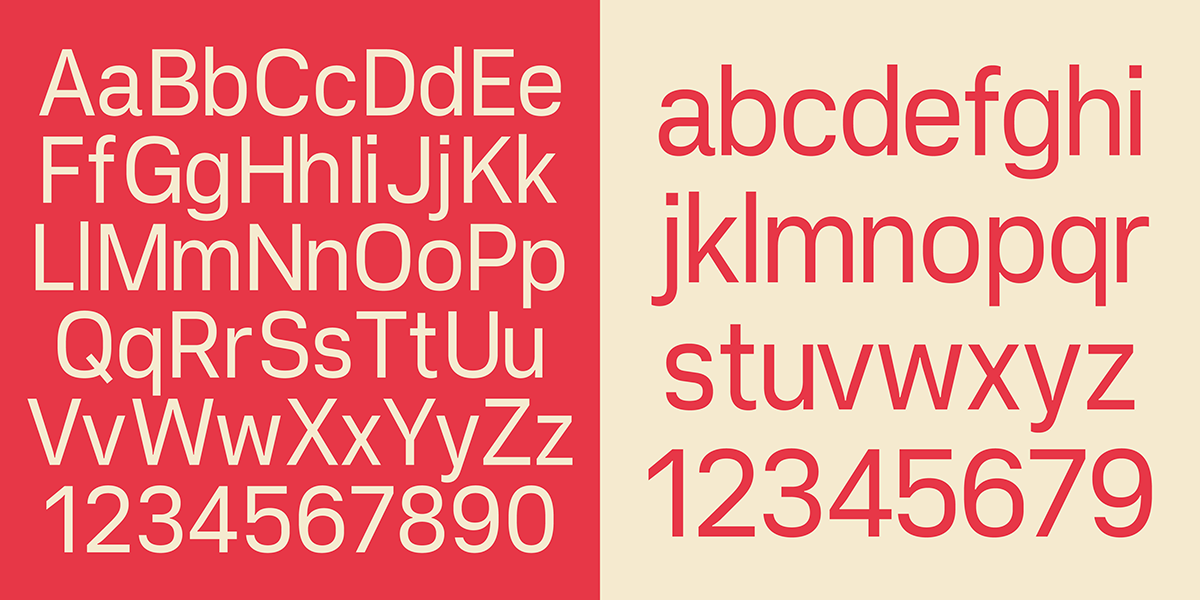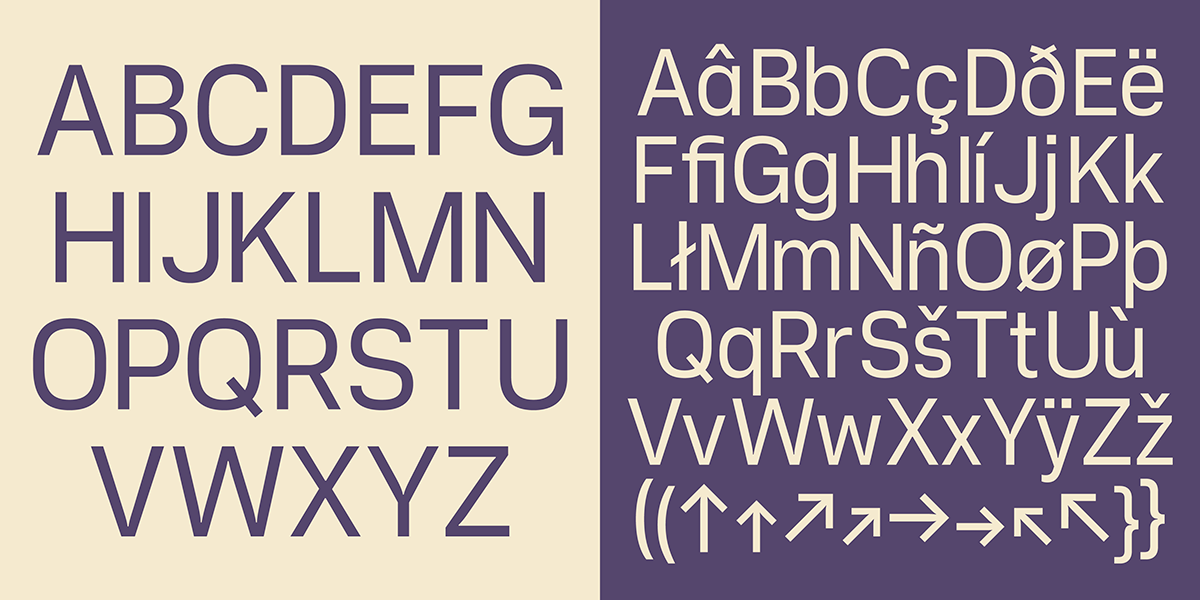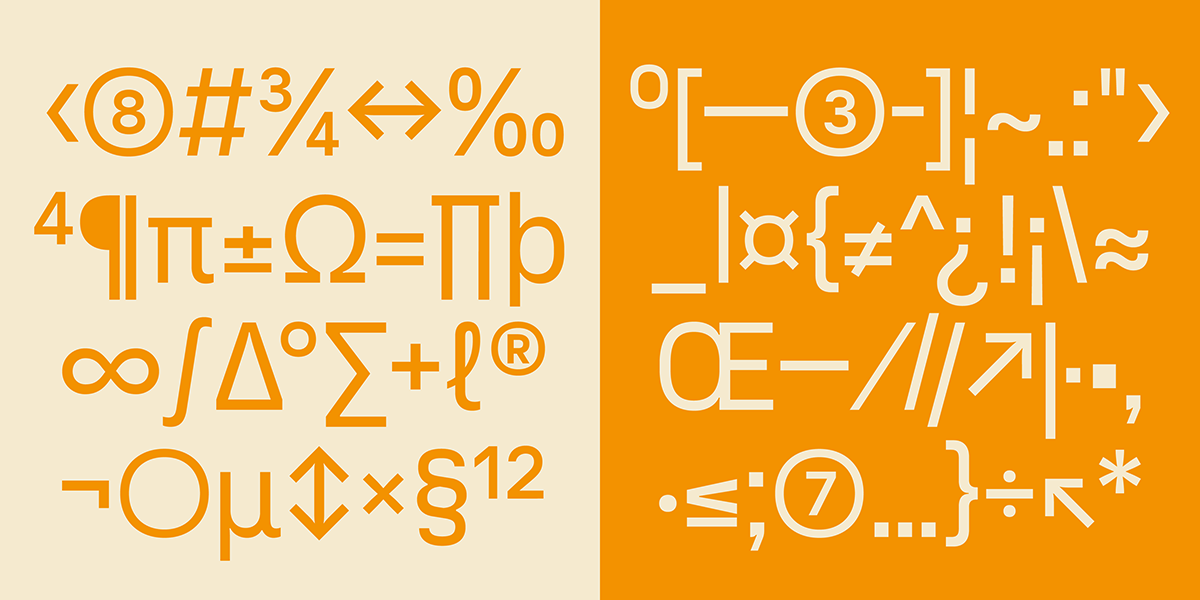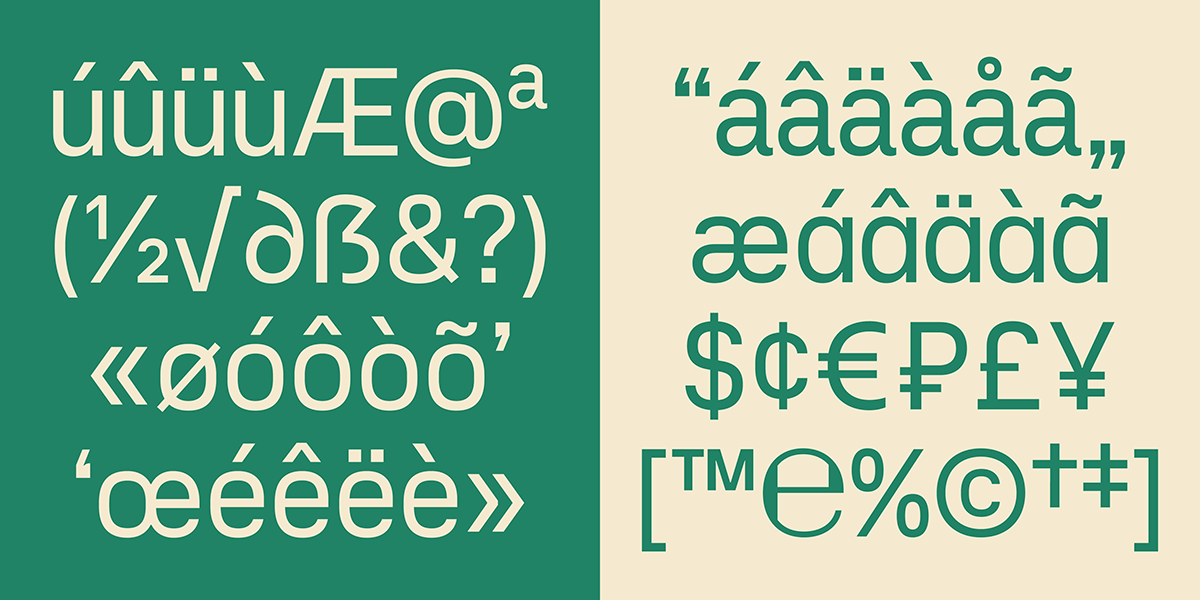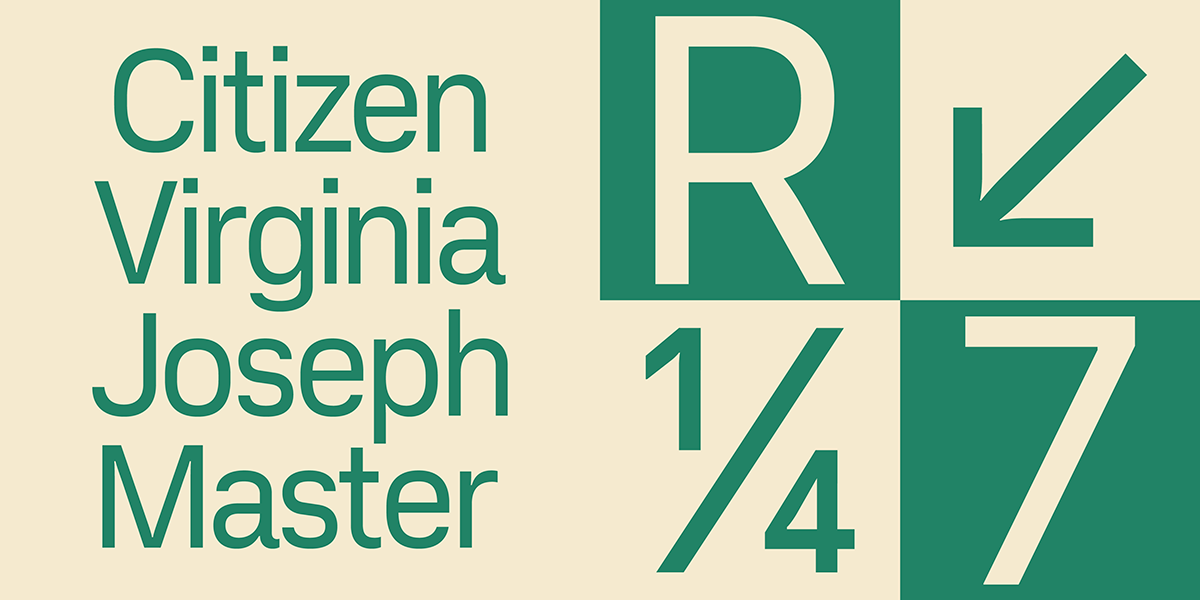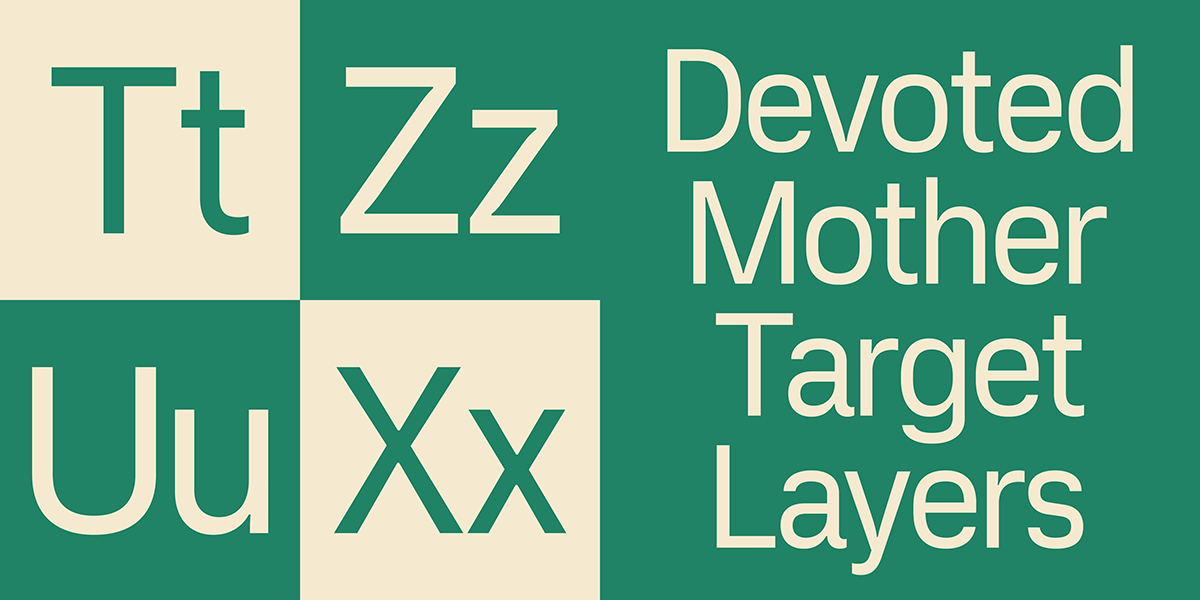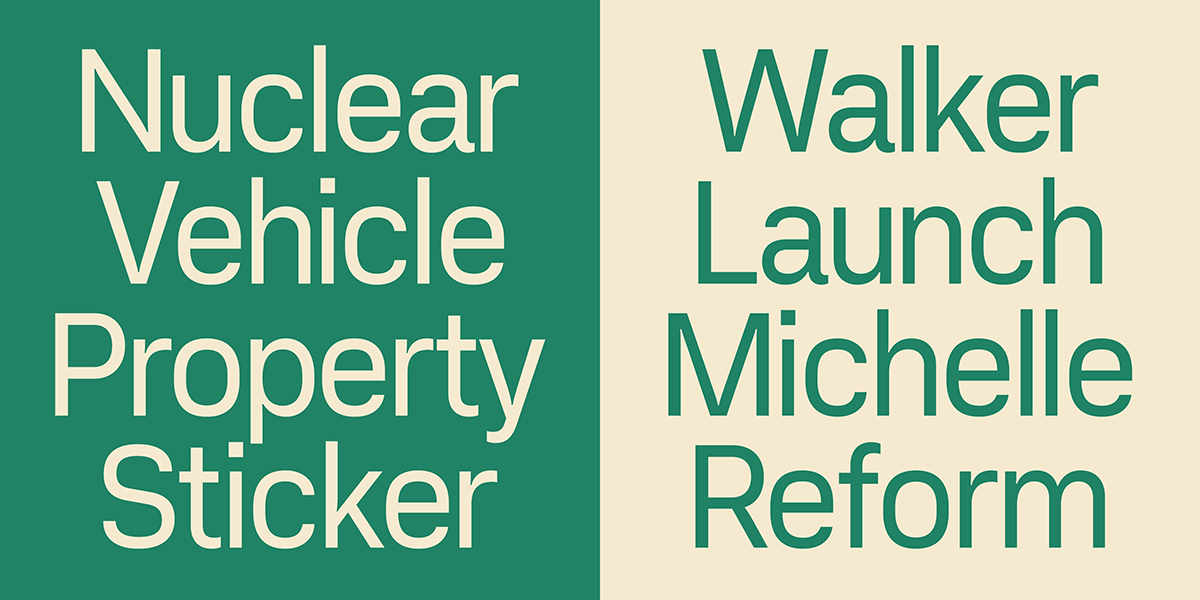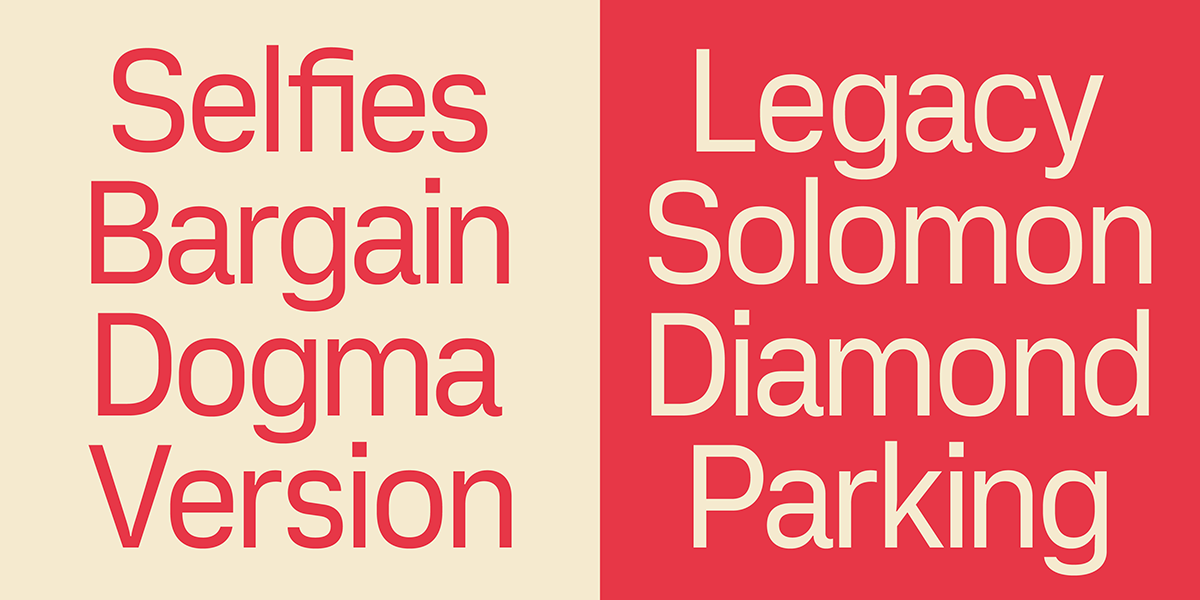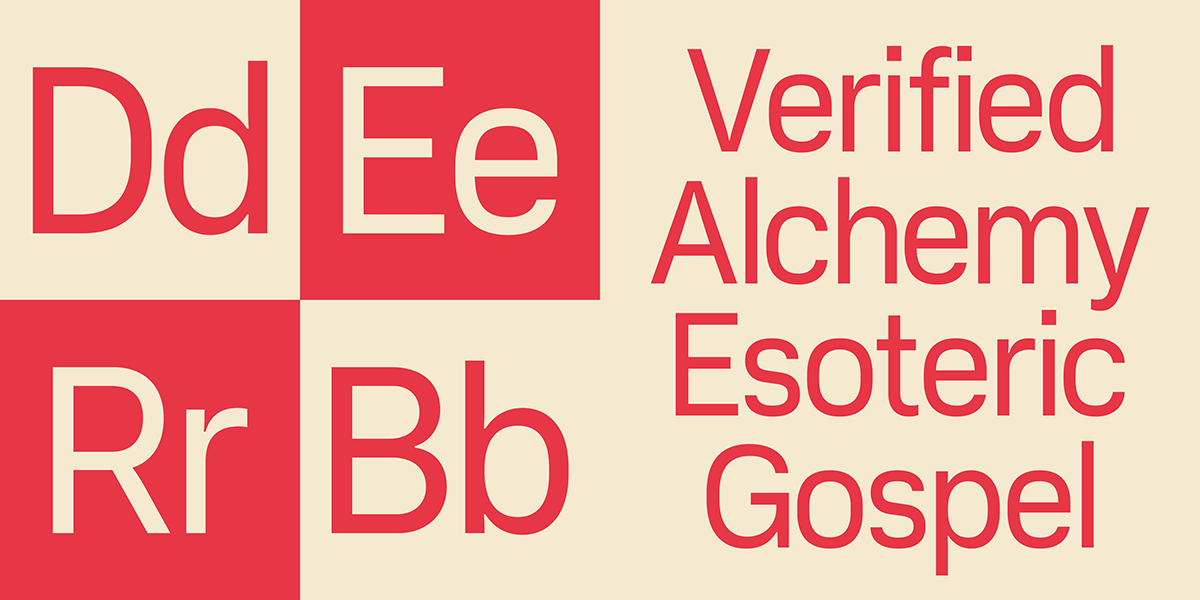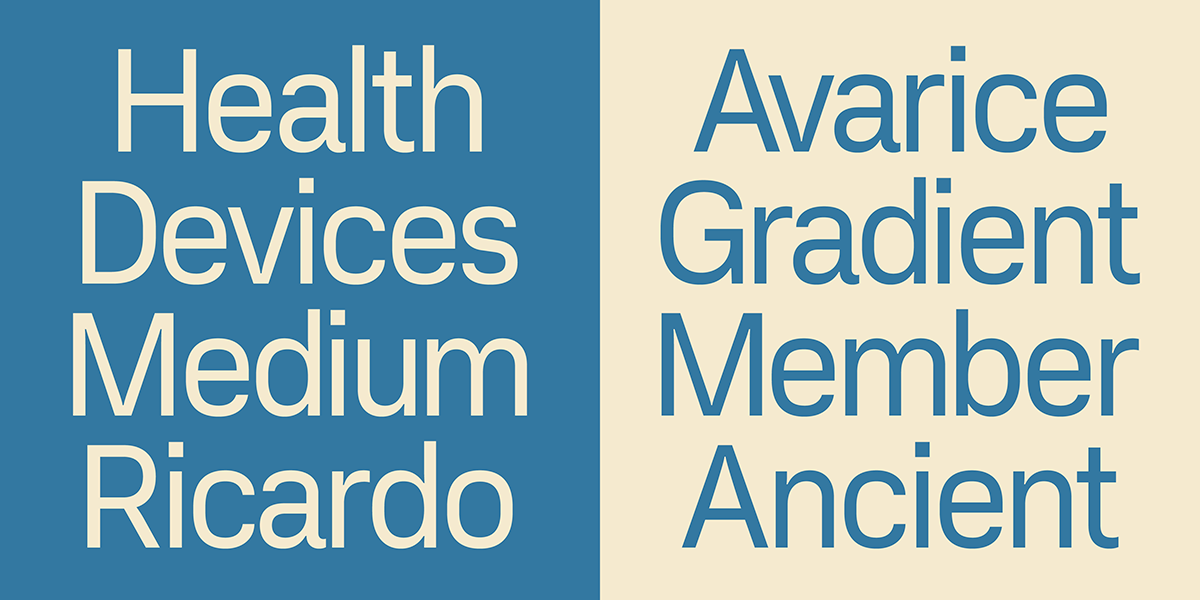
Vercetti is a sans serif font inspired by a humanistic design with a geometric touch. Its character structure is solid and moderately conventional, integrating smoothly into miscellaneous projects such as editorial design, branding, or advertising. It is also perfectly suitable for letterheads, website design, packaging, posters, and short texts.
Vercetti’s overall look is quite rectangular while preserving balanced proportions. These characteristics increase font legibility when being used in smaller sizes. Discrete ink traps contribute to the clarity and readability of the glyphs, even in narrow blocks of text.
With a total of 326 glyphs, Vercetti is provisioned with a set of OpenType features, including automatic contextual alternates, case alternates, tabular figures, and standard ligatures, alongside symbols, arrows, and circled numbers.
In April 2021, the initial discussion arose that led to the design of the Vercetti font. Despite the fact that Filippos and Richard were located on different continents, they regularly communicated and exchanged ideas and thoughts regarding the progress and development of the font. They also received decisive guidance and feedback from experienced type designers.
This font also materializes various musings on the obsolete freeware scattered around the internet. Old, outdated, or incomplete digital fonts can be revived and updated, made applicable again, and put into a new context, thus immediately starting to serve new purposes. While designing Vercetti, the creators pulled out and reassembled pieces from an earlier release, so Vercetti became a decisively enhanced descendant of Magenta Ltd’s MgOpen Moderna open source typeface.
Filippos Fragkogiannis introduced most facets of Vercetti’s concept, while Richard Mandona carried out the entire font design under assignment. All details were carefully drawn and corrected with a fine finish in mind and with Vercetti as an efficient good, directly accessed by the creative community and the general public.
As a result, the Vercetti font aspires to be another consistent and well-polished option in the font book of any proficient designer, student, or individual; hence, it is distributed as a free font under Licence Amicale. We are keen to see Vercetti’s visual simplicity used across various mediums.